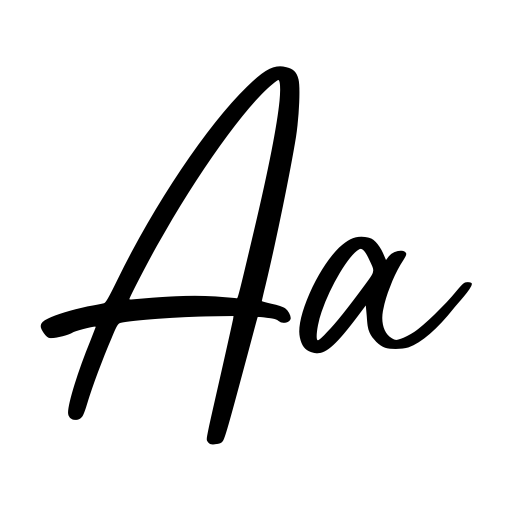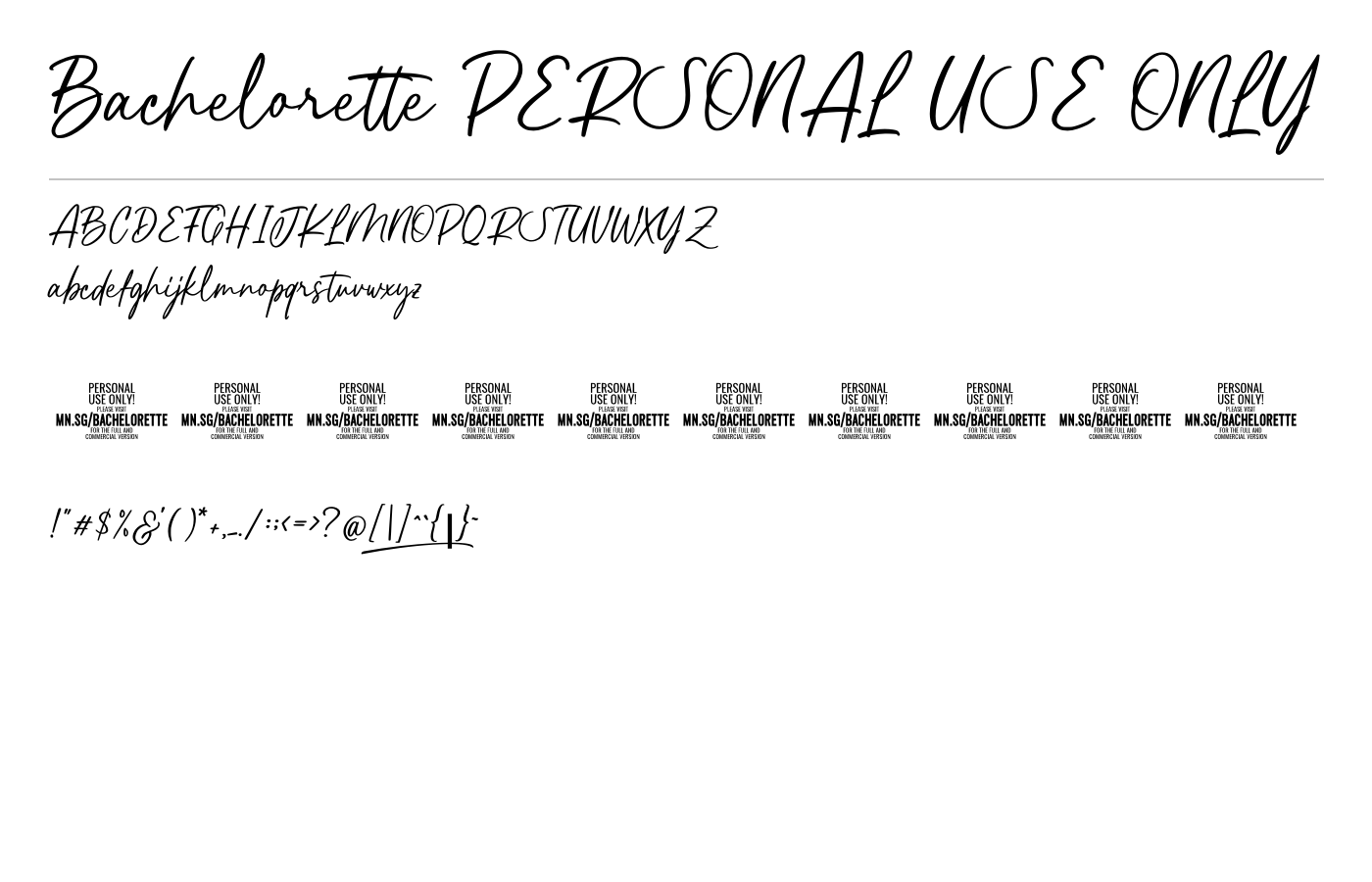
Bachelorette PERSONAL USE ONLY is a stylish script font with a casual, handwritten feel, featuring tall, slender letterforms and smooth, flowing strokes. Its light weight and elegant, slightly playful character make it perfect for invitations, branding, and feminine or creative projects looking to convey charm and personality. This font works well in headlines and decorative text where a personal, approachable touch is desired.
Bachelorette PERSONAL USE ONLY Font
About Bachelorette PERSONAL USE ONLY Font